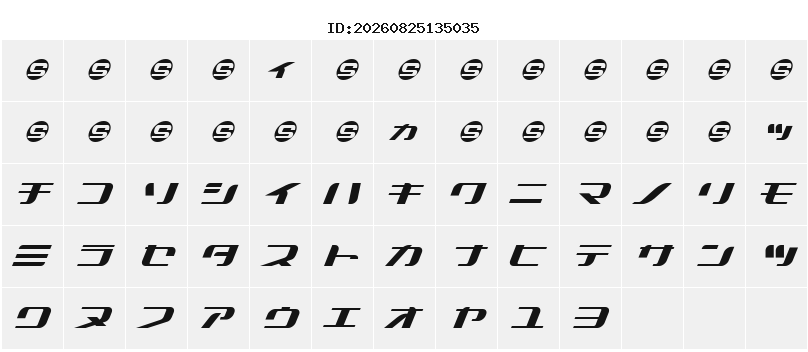
SUMMERCAMPKaSha Preview
• Font Name: SUMMERCAMPKaSha
• Full Font Name: SUMMERCAMPKaSha
About SUMMERCAMPKaSha.ttf
SUMMERCAMPKaSha.ttf is a modern, elegant sans-serif font designed for ultimate readability and visual harmony. Perfect for branding, headlines, web design, and print materials.